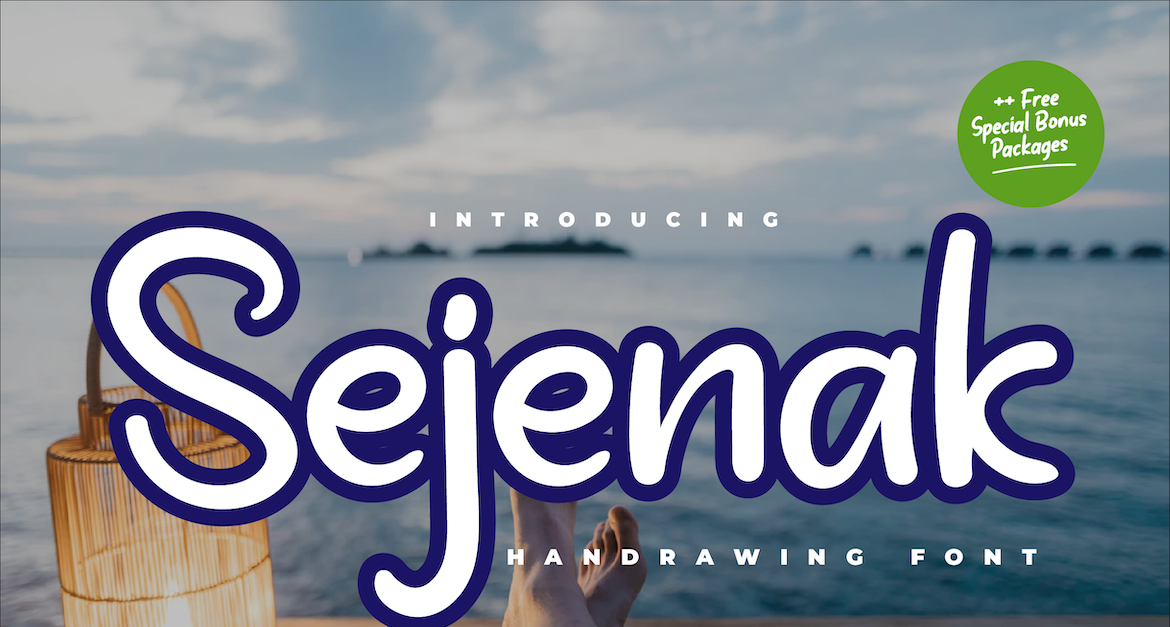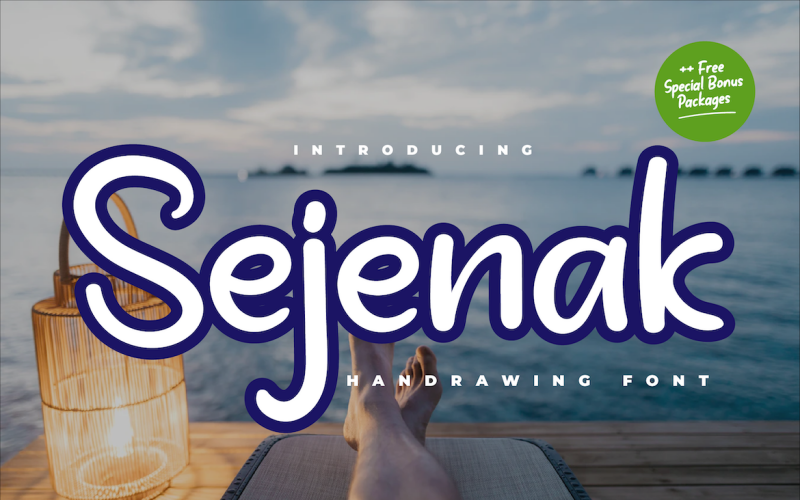
Sejenak Font
Sejenak is a sweet and friendly display font. Its natural and unique style makes it incredibly fitting for a large pool of designs. The only limit is your imagination!
This font will turn any creative idea into a true piece of art, this font is perfect for strong text with displays for a wide variety of branding, advertising, posters, banners, packaging, headlines, outdoor activity, websites, logo design, and more.